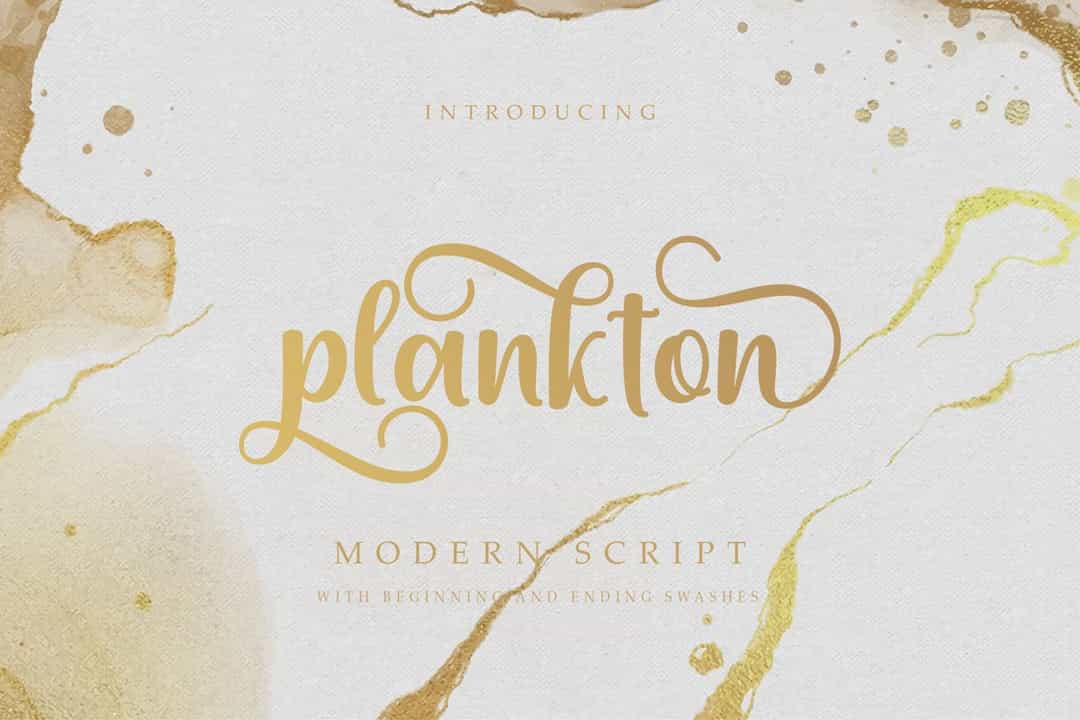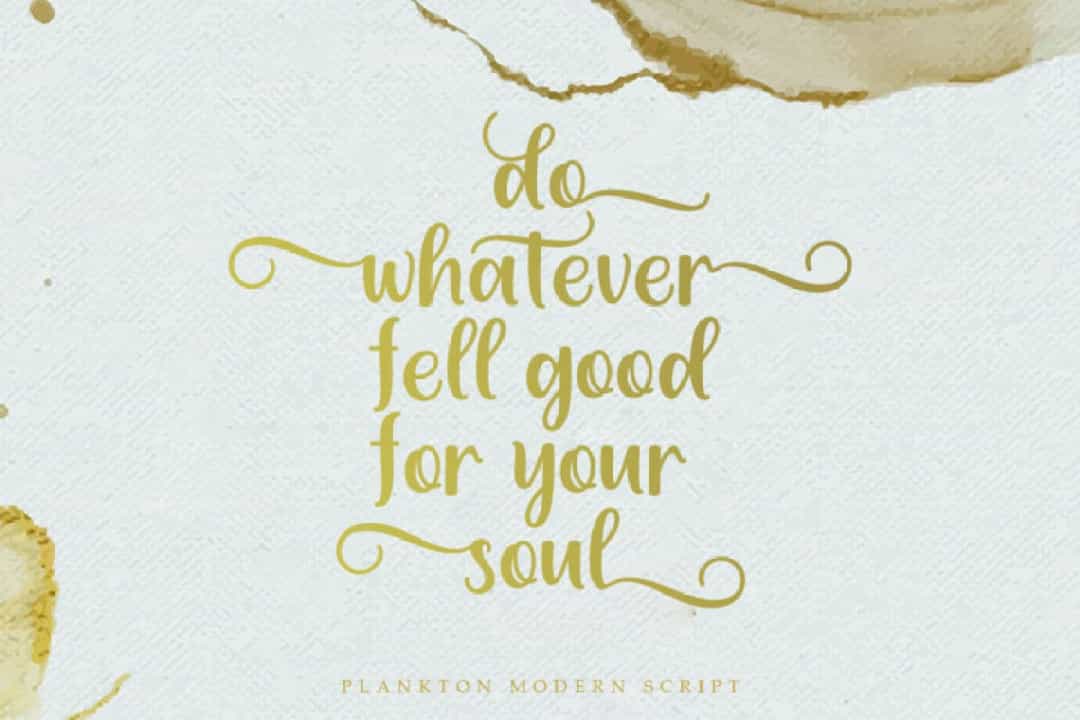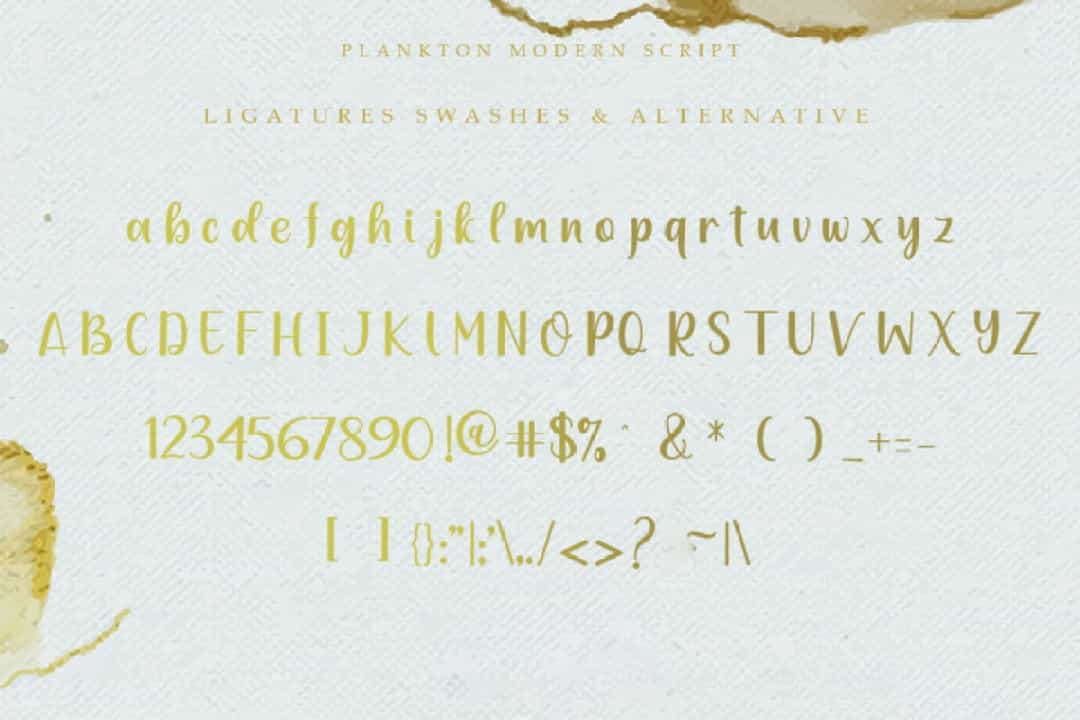
Plankton font includes more than 300 characters and its alternates were distributed in different Open Type features that include Swash, Stylistic Sets, Stylistic Alternates, and Contextual Alternates so as to enable easy access when using Adobe Illustrator, InDesign, Photoshop, Corel Draw X version, and Microsoft Word programs that have support for Open Type features.